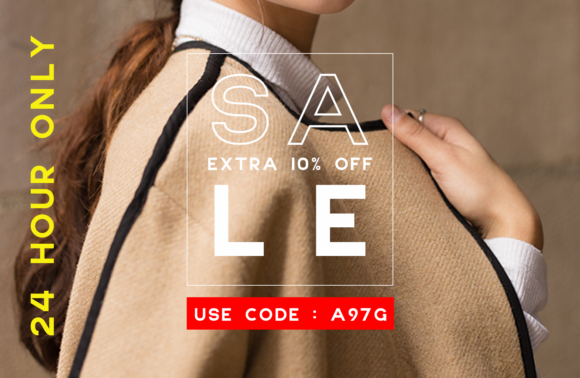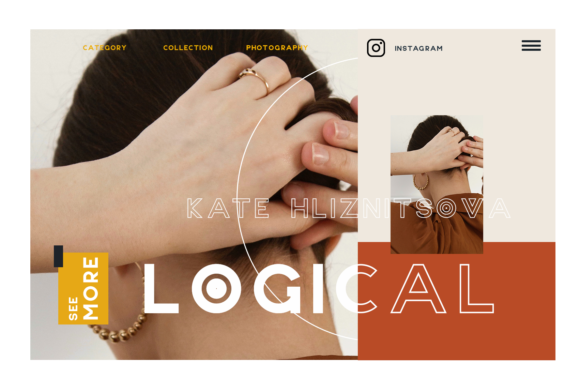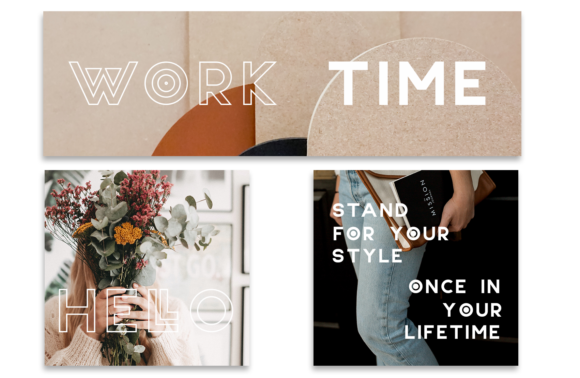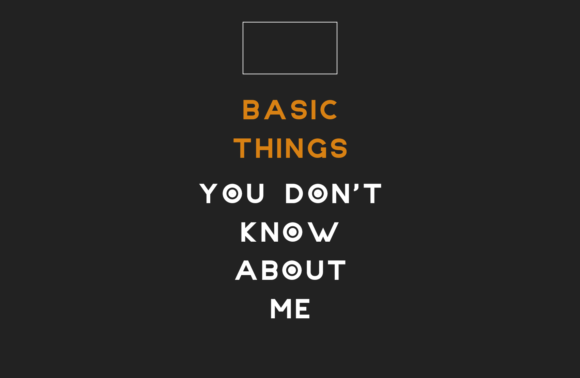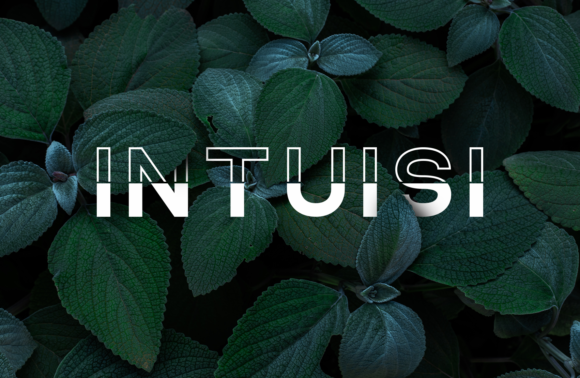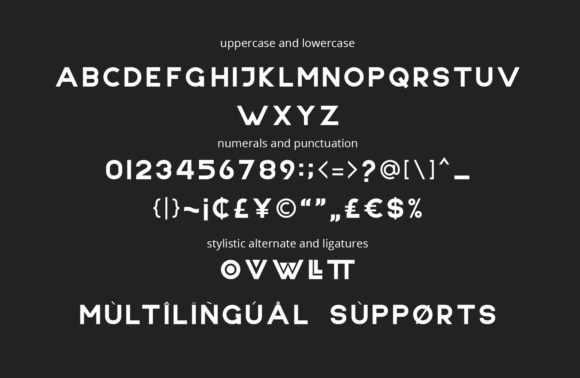
Introduction to Nonlocal Font
Nonlocal is a cool, modern and simple display font.
No matter the topic, this font will be an incredible asset to your fontsโ€™ library, as it has the potential to elevate any creation .
Key Features of Nonlocal Font
Why Choose Nonlocal Font?
Nonlocal Font offers exceptional quality and versatility, making it a valuable addition to your design toolkit. Whether you’re creating for personal projects or commercial use, Nonlocal Font delivers professional results.